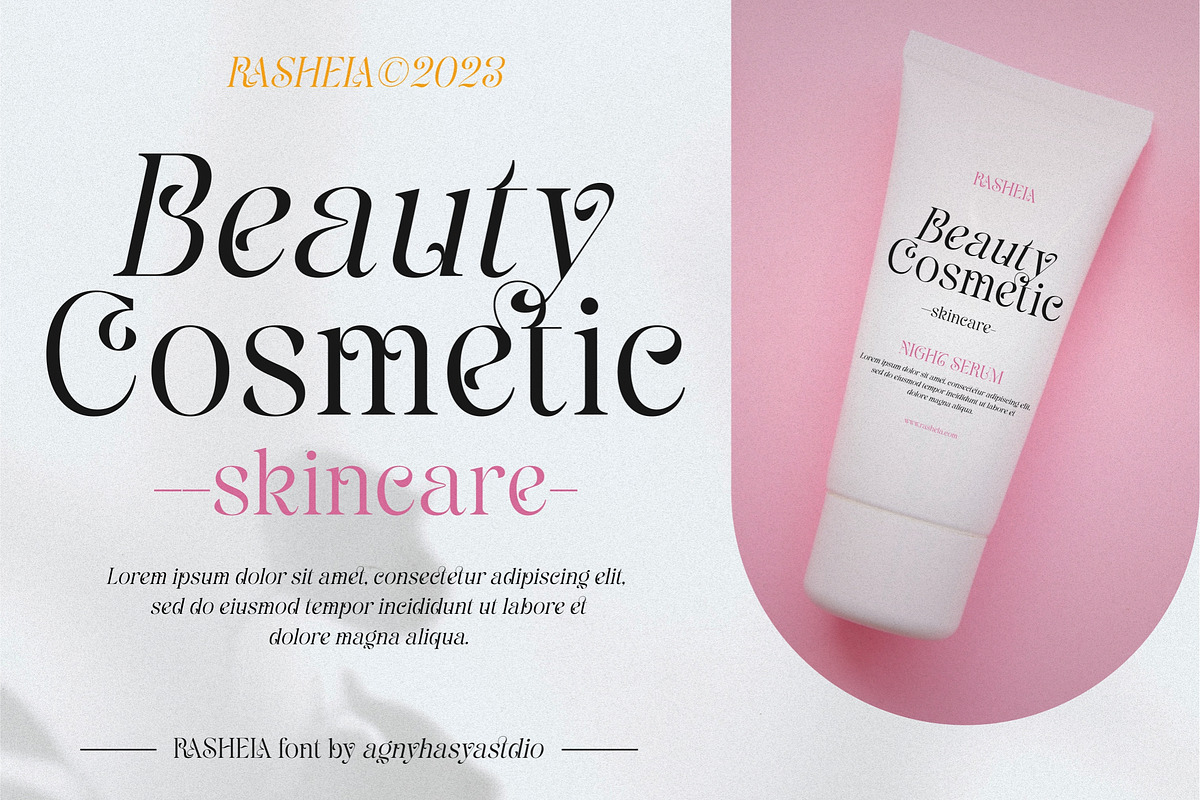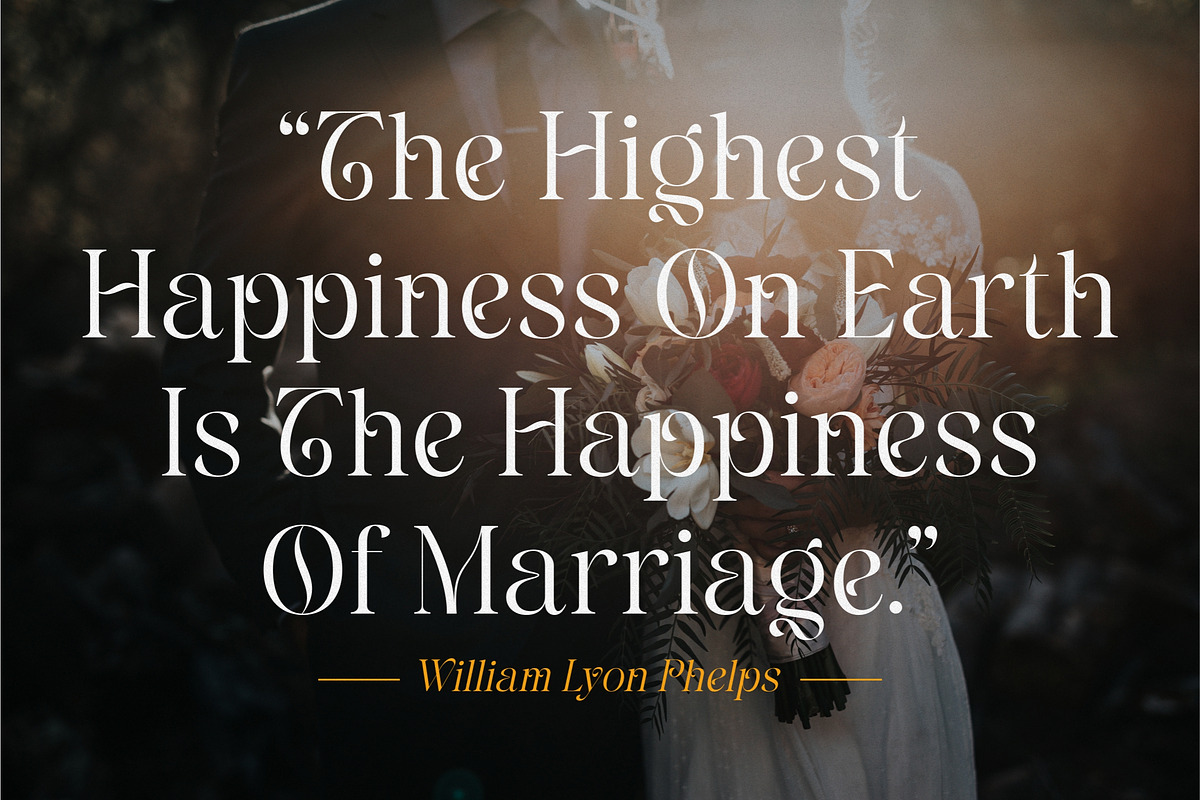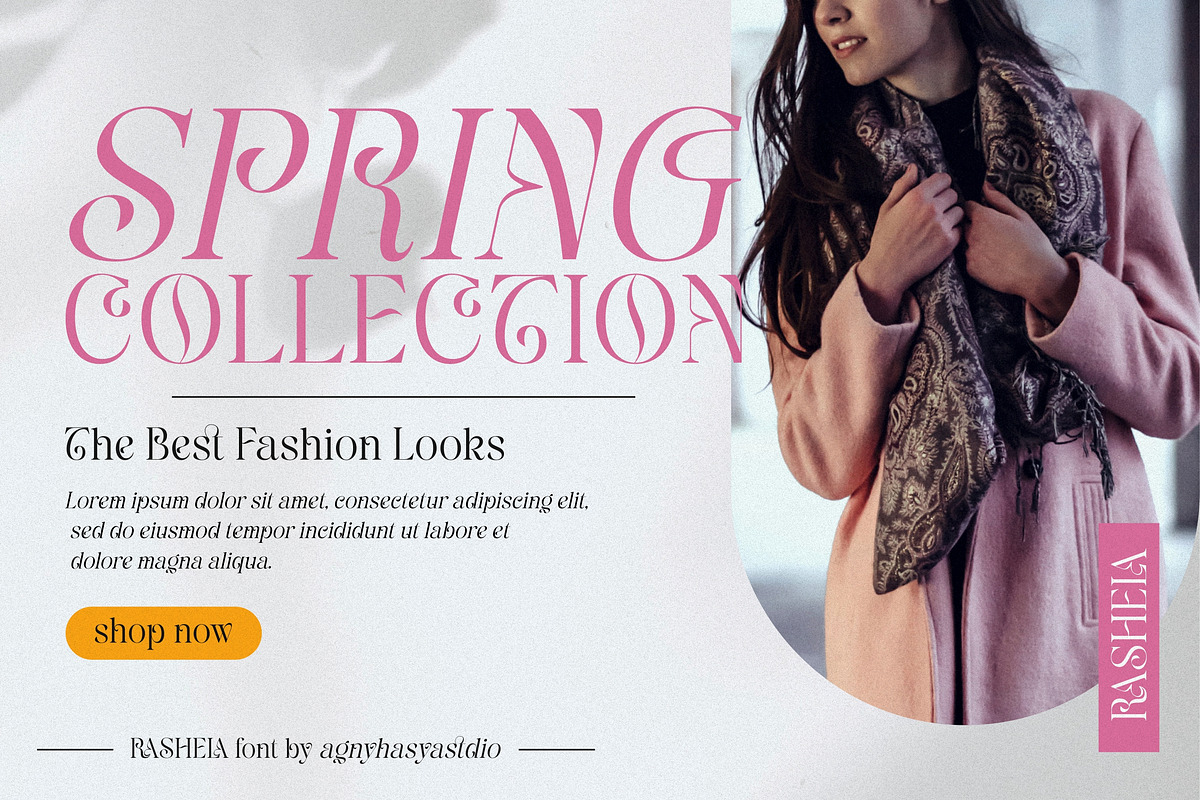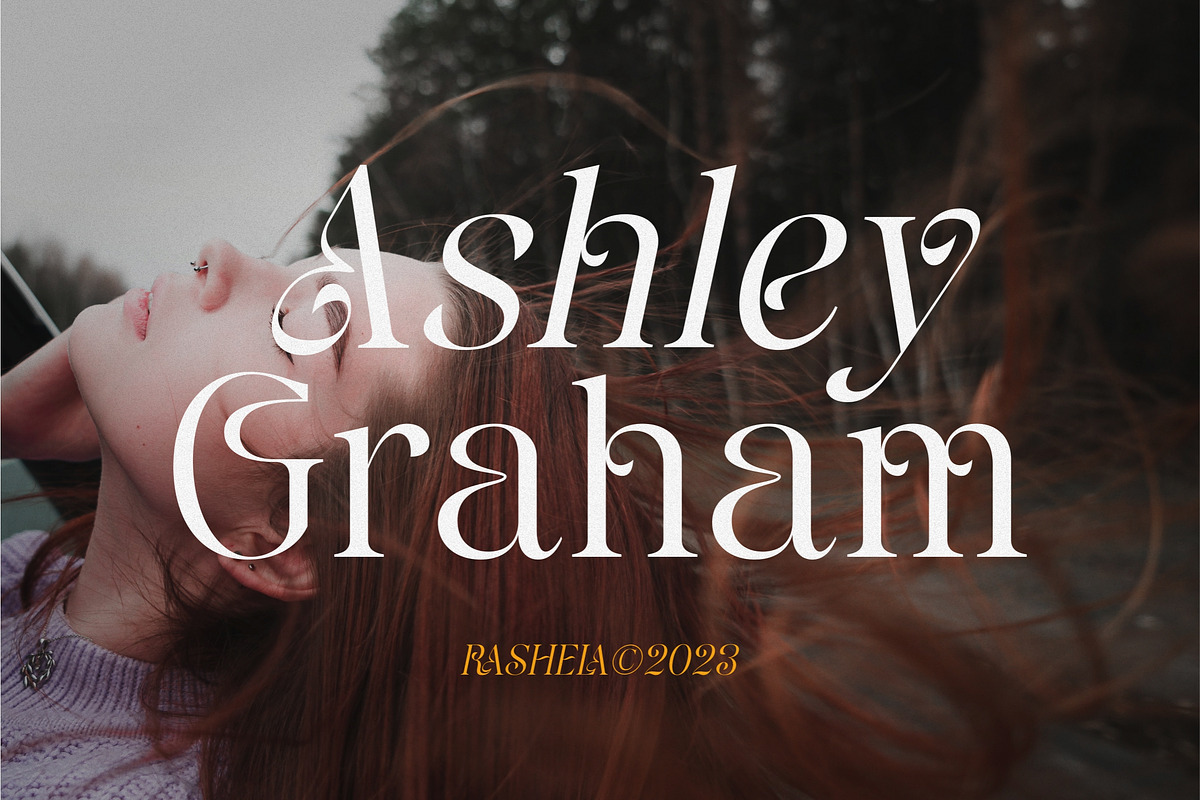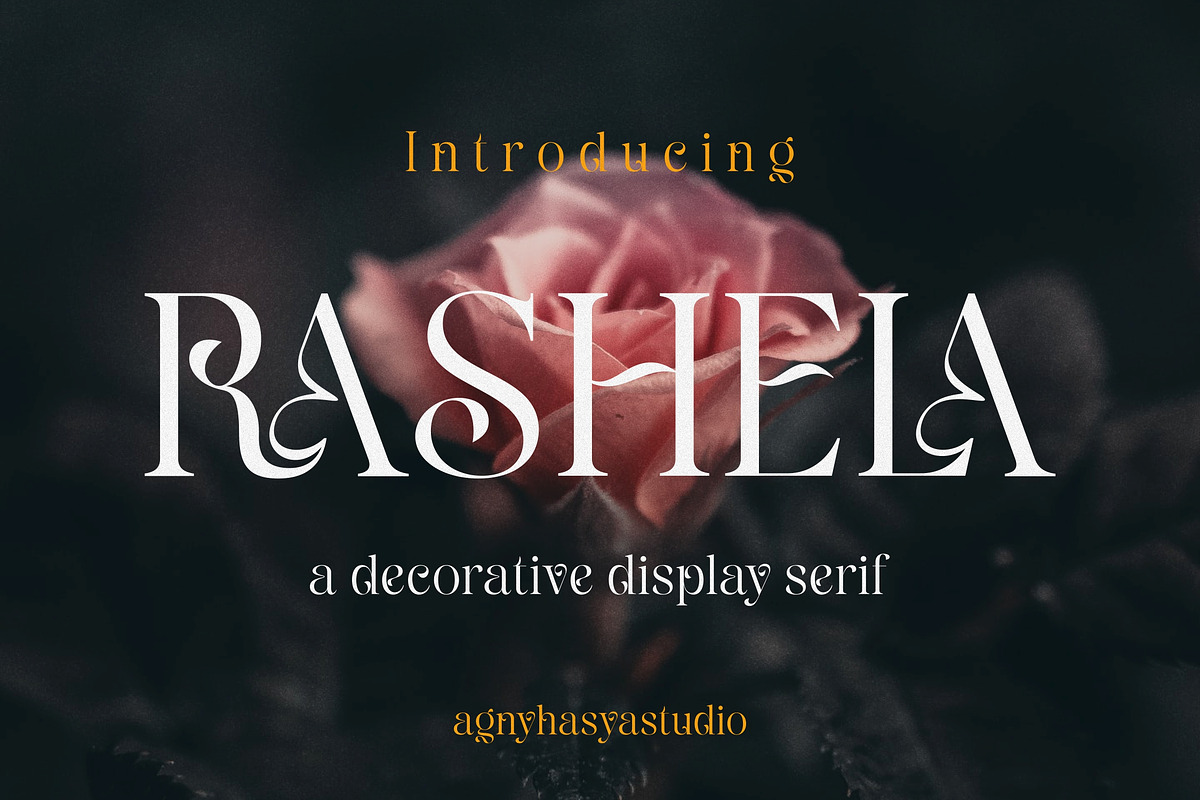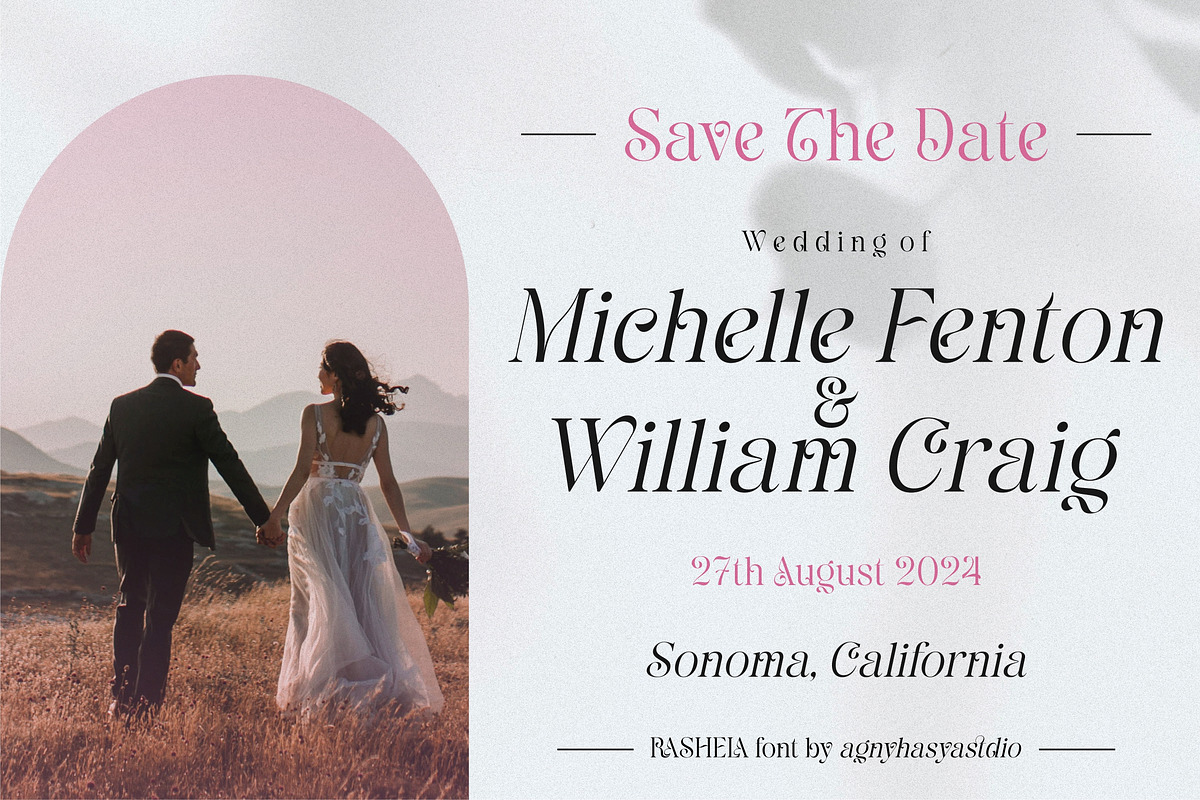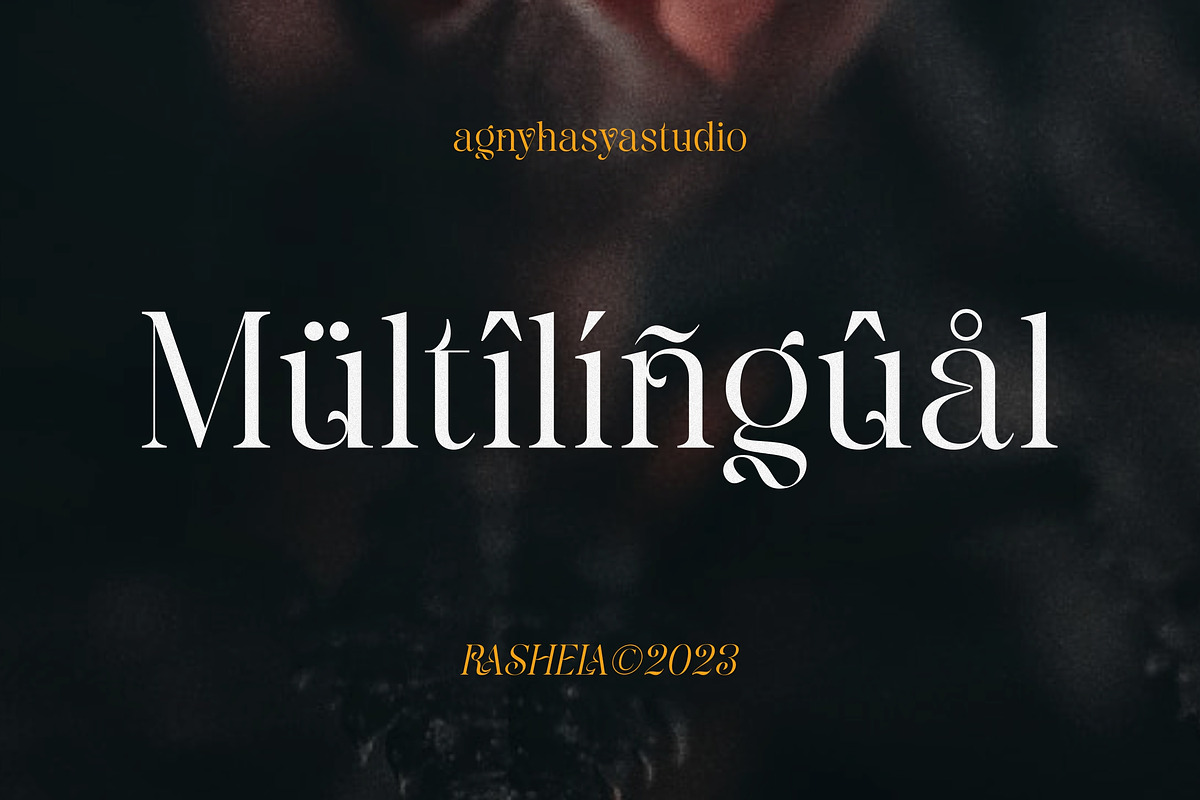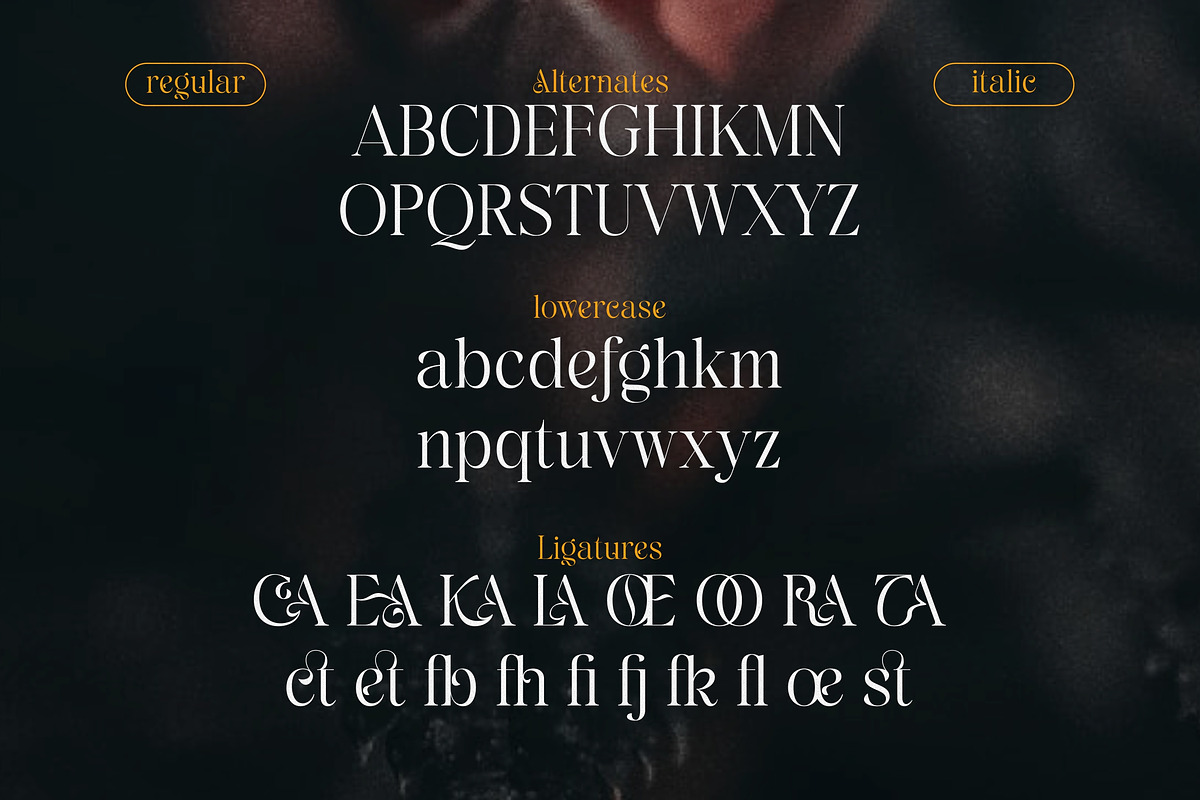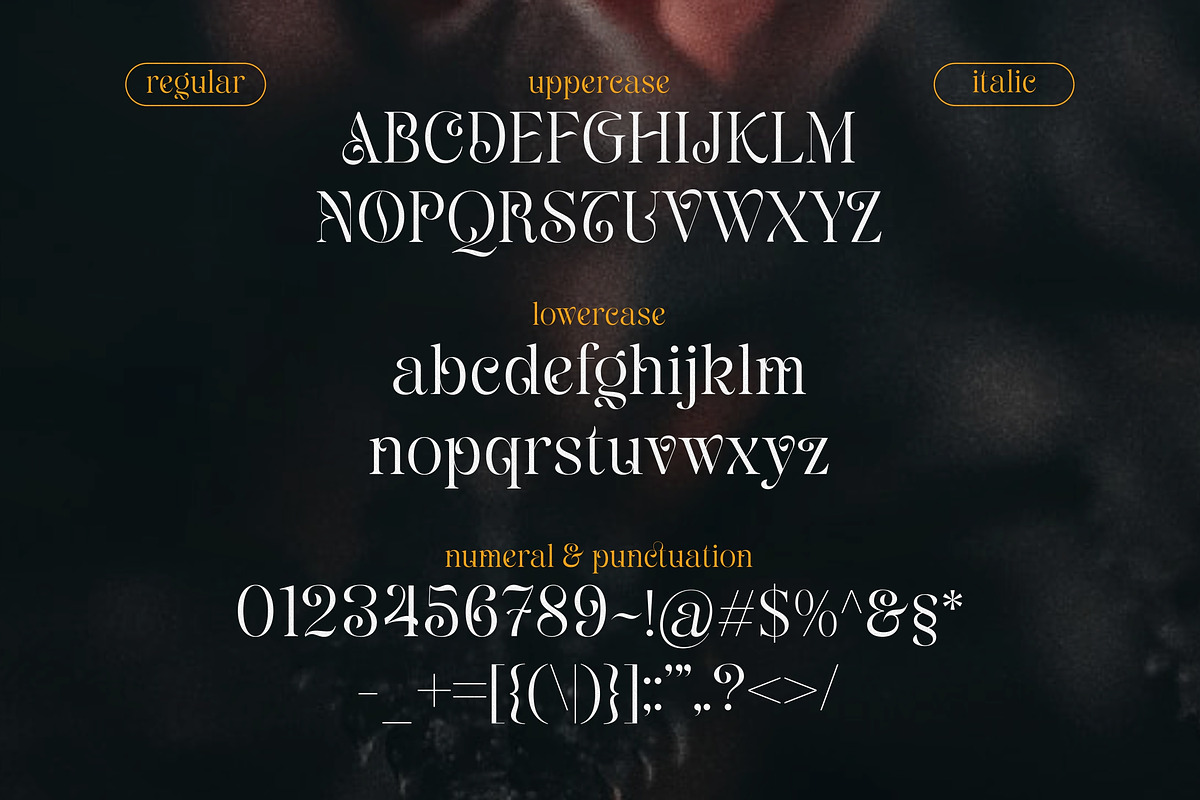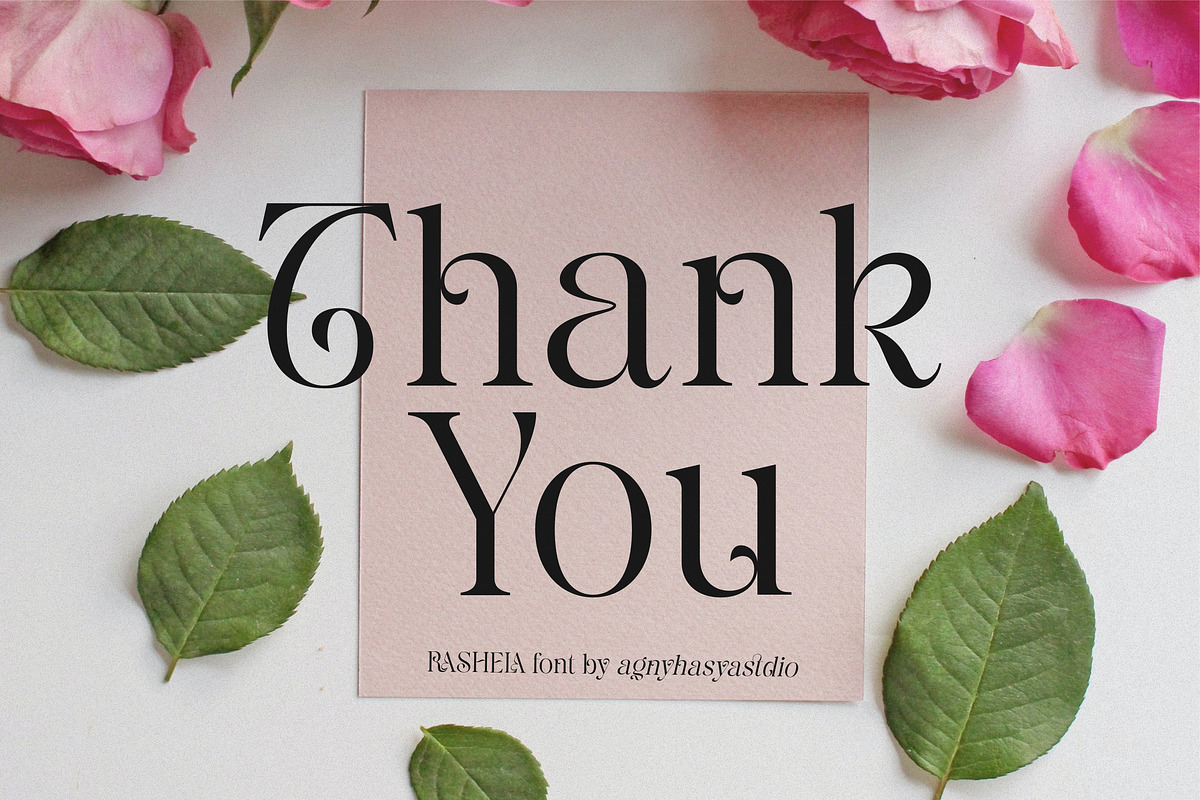
Rashela - A Decorative Serif
Introducing Rashela - A Decorative Serif
Rashela is a Decorative Serif Display Font, Modern, Luxury, and Elegant Come with 2 (two) styles (regular & italic) and is created with glyph variations like alternates and ligatures. Combine it and make your perfect typography design!
Perfect for your design projects like logos, branding, advertising, product designs, stationery, magazine designs, book/cover title designs, photography, art quotes, wedding designs, fashion designs, special events, labels, product packaging, and more.